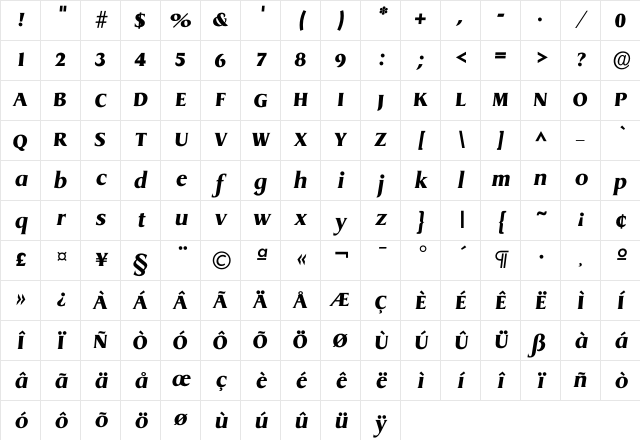
Idragon ExtraBold
Design Context for Idragon
Idragon is a composed and adaptable typeface that performs quietly and consistently across a wide range of design contexts. Its bold stroke weight gives it real presence on the page.